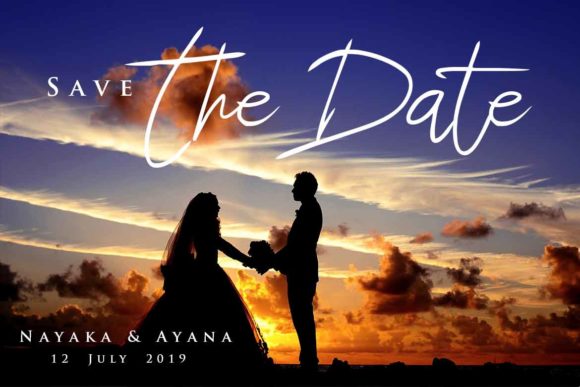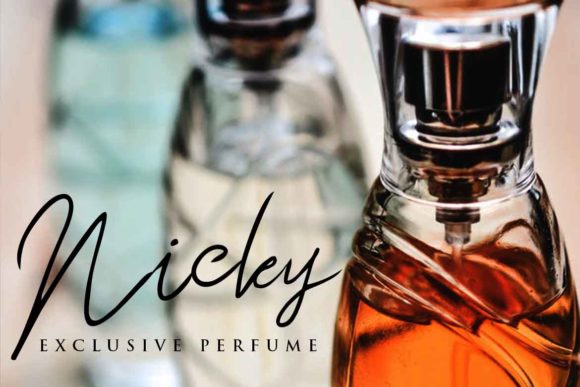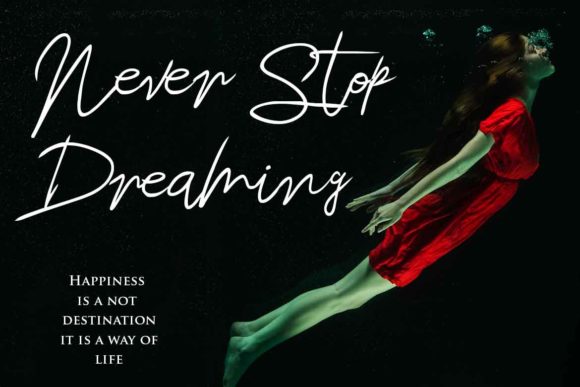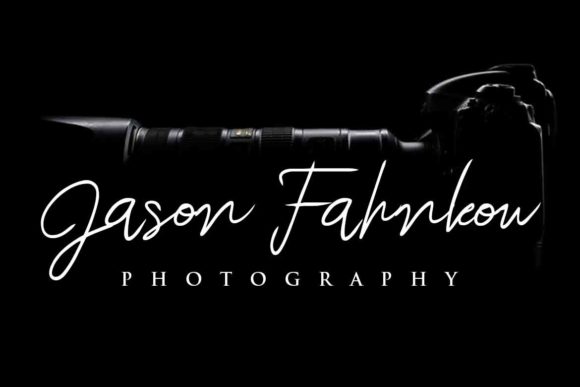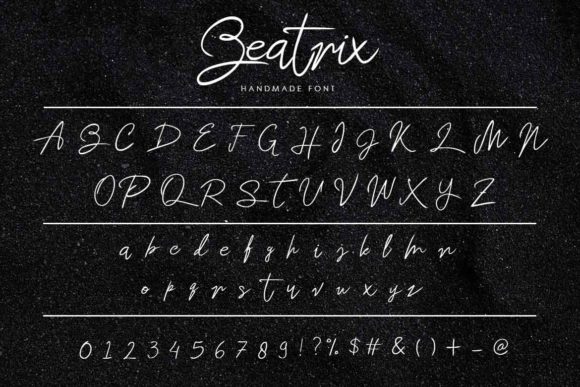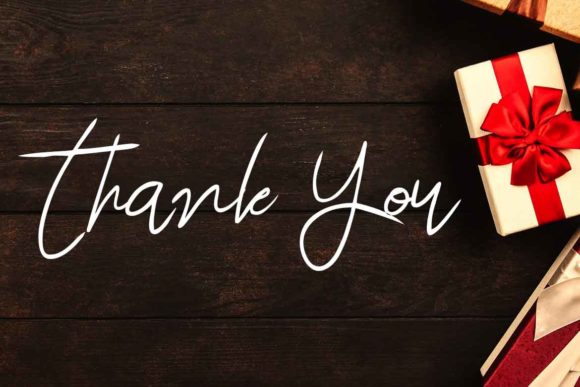
Introducing Beatrix Script Font: Elevate Your Designs with a Unique Handwritten Style
In the world of typography, a good font can make all the difference in the success of a design project. For designers and crafters looking to add a personal touch to their work, Beatrix Script Font is an exciting and versatile option. This natural handwritten font features a unique character set that is sure to make your designs stand out from the crowd.
Handwritten fonts have a way of adding a touch of warmth and personality to any design. They can evoke feelings of nostalgia, creativity, and playfulness, making them perfect for a wide range of projects, from wedding invitations and branding materials to packaging and digital media. Beatrix Script Font takes the best of handwritten typography and brings it to the table with its distinctive and charming style.
What Makes Beatrix Script Font Special?
Beatrix Script Font is not just another script font. Its unique character set is designed to add a touch of elegance and sophistication to your designs. Here are a few features that make Beatrix Script stand out:
- Natural and Fluid: Beatrix Script Font has a natural, handwritten feel that is fluid and dynamic. Its strokes are smooth and connected, giving it a sense of movement and energy.
- Unique Character Set: The font features a unique set of characters, including uppercase and lowercase letters, numbers, and punctuation marks. Each character is carefully designed to add a touch of personality to your designs.
- Versatile: Beatrix Script Font is versatile and can be used for a wide range of projects, from formal and elegant designs to more playful and creative ones.
How to Use Beatrix Script Font in Your Designs
Beatrix Script Font is easy to use and can be incorporated into your designs in a variety of ways. Here are a few ideas to get you started:
- Wedding Invitations: Add a touch of elegance and sophistication to your wedding invitations with Beatrix Script Font.
- Branding Materials: Use Beatrix Script Font to create unique and memorable branding materials, such as logos, business cards, and letterheads.
- Packaging: Add a personal touch to your packaging with Beatrix Script Font. It’s perfect for product labels, packaging inserts, and more.
- Digital Media: Use Beatrix Script Font to create engaging and interactive digital media, such as social media graphics, blog posts, and email newsletters.
Tips for Getting the Most Out of Beatrix Script Font
To get the most out of Beatrix Script Font, here are a few tips to keep in mind:
- Experiment with Different Sizes: Beatrix Script Font looks great in a variety of sizes. Experiment with different sizes to find the one that works best for your design.
- Pair it with Other Fonts: Beatrix Script Font pairs well with other fonts. Try pairing it with a bold sans-serif font for a striking contrast.
- Use it for Headlines and Titles: Beatrix Script Font is perfect for headlines and titles. Use it to add a touch of personality and elegance to your designs.
Beatrix Script Font is a unique and versatile handwritten font that is sure to elevate your designs. With its natural and fluid style, unique character set, and versatility, it’s perfect for a wide range of projects. Whether you’re a designer, crafter, or DIY enthusiast, Beatrix Script Font is a great addition to your typography toolkit. So why wait? Download Beatrix Script Font today and start creating stunning designs that stand out from the crowd!